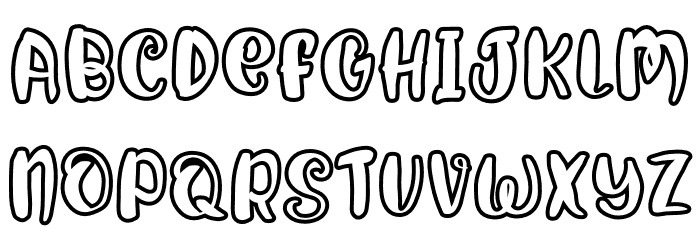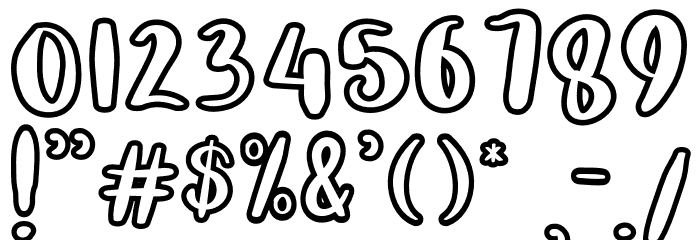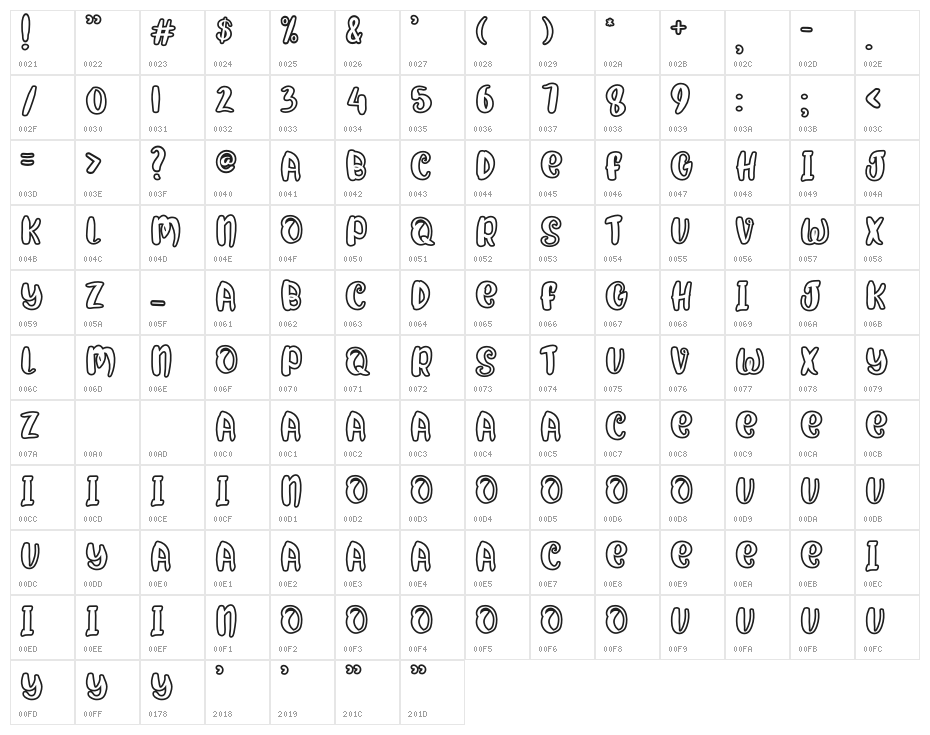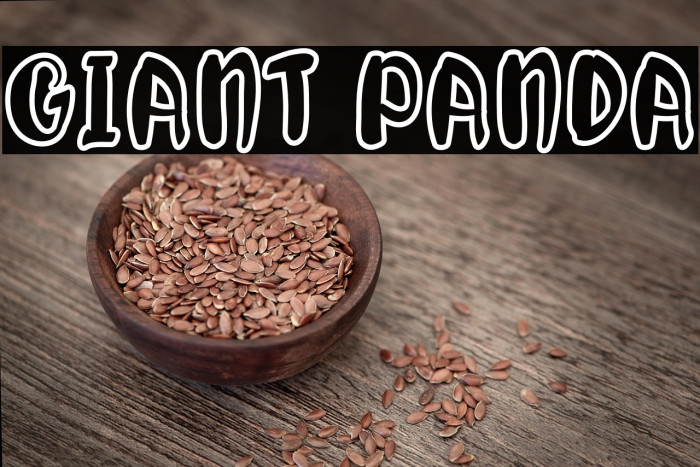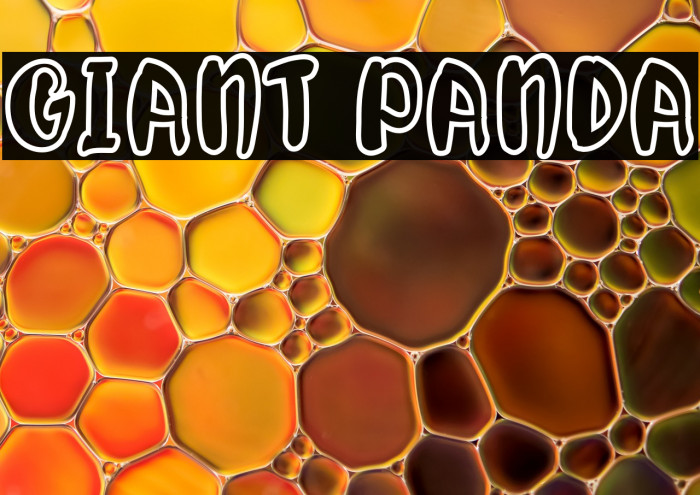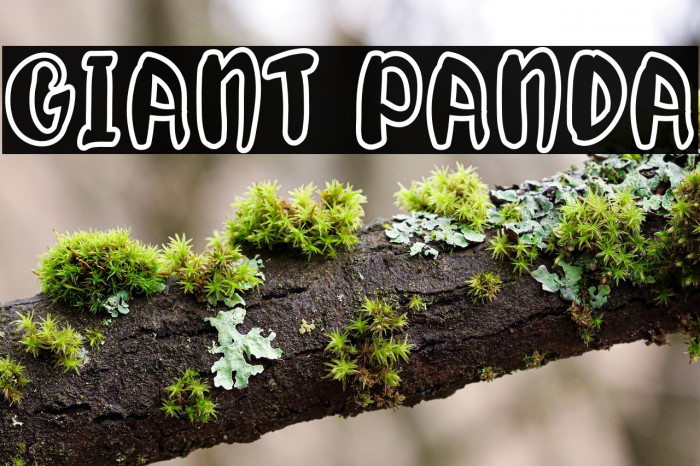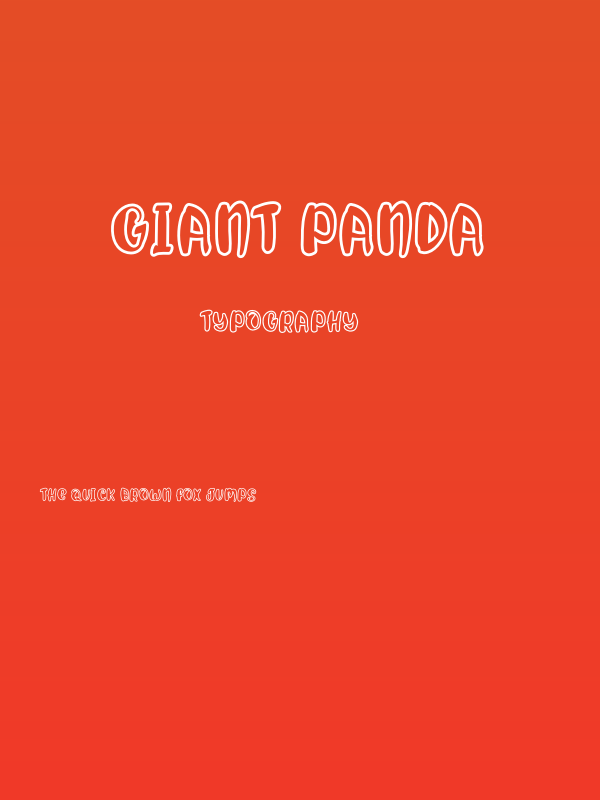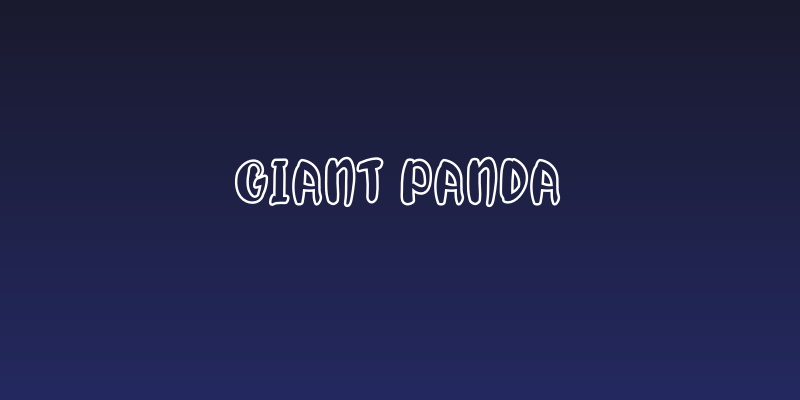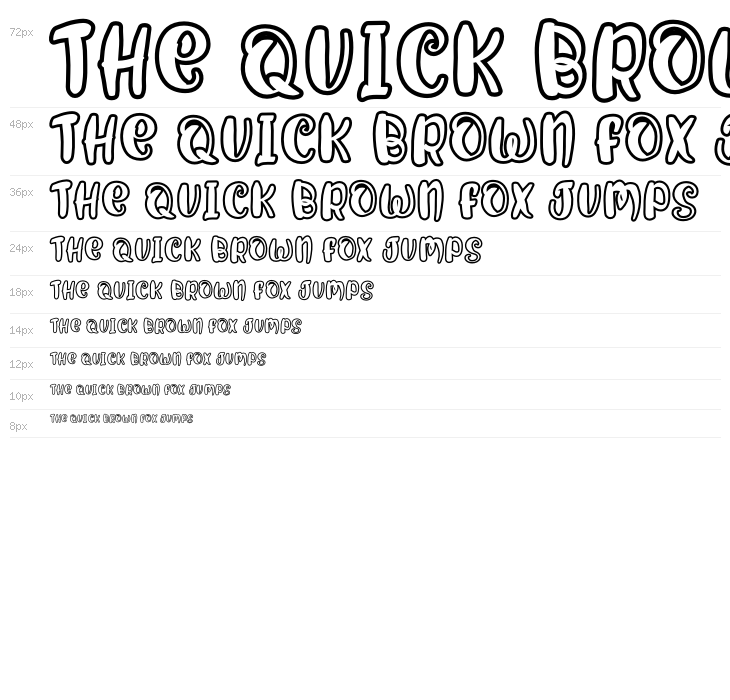
Giant Panda Font
This playful and bold font features a unique, hand-drawn style with thick, rounded outlines that give it a cartoonish and friendly appearance. The letters are slightly irregular, adding to the whimsical and informal feel. The uppercase and lowercase characters maintain a consistent style, with the numbers and special characters complementing the overall design. The font's boldness and distinctive look make it ideal for projects that require a fun and engaging aesthetic.
A playful, bold, and hand-drawn font with cartoonish, rounded outlines.
- Proposed Projects: Ideal for children's books, comic strips, playful branding, and posters.
- Overall Style: Playful, Cartoonish